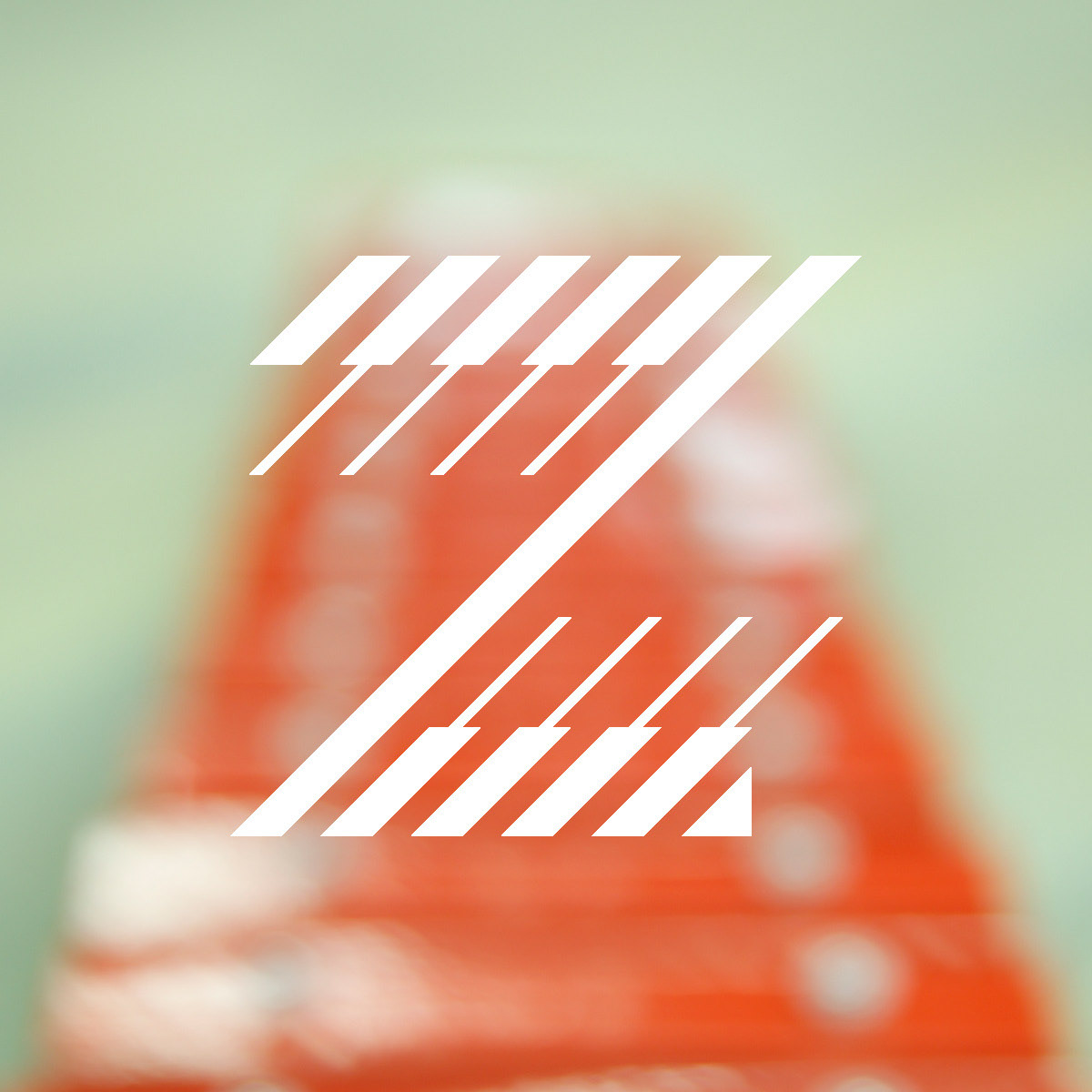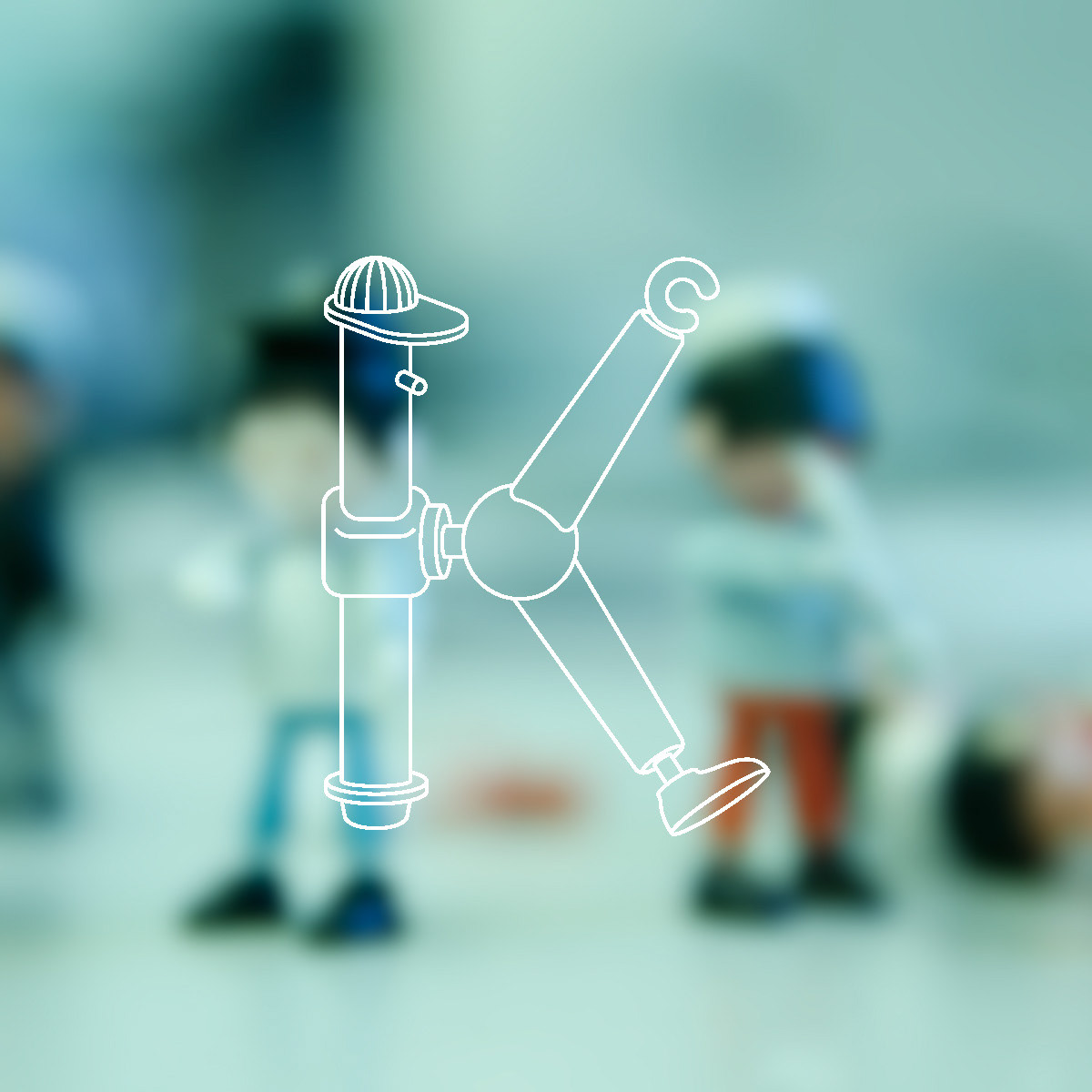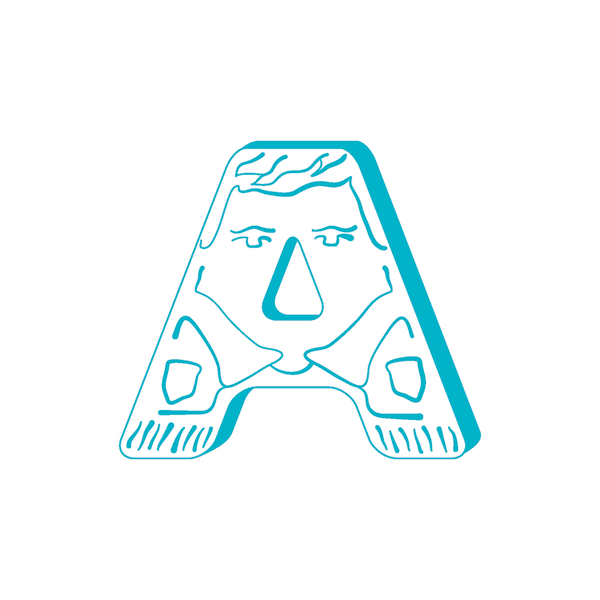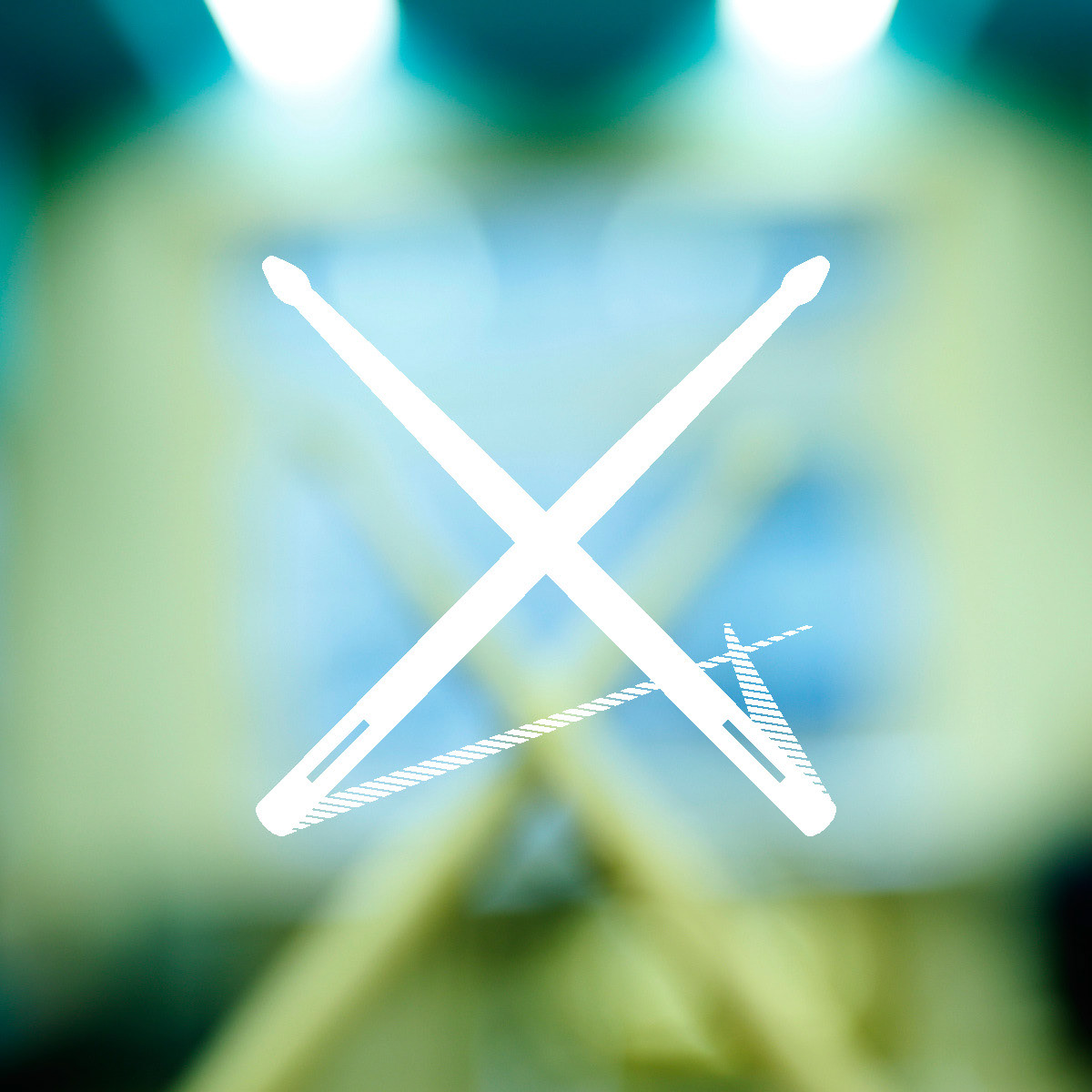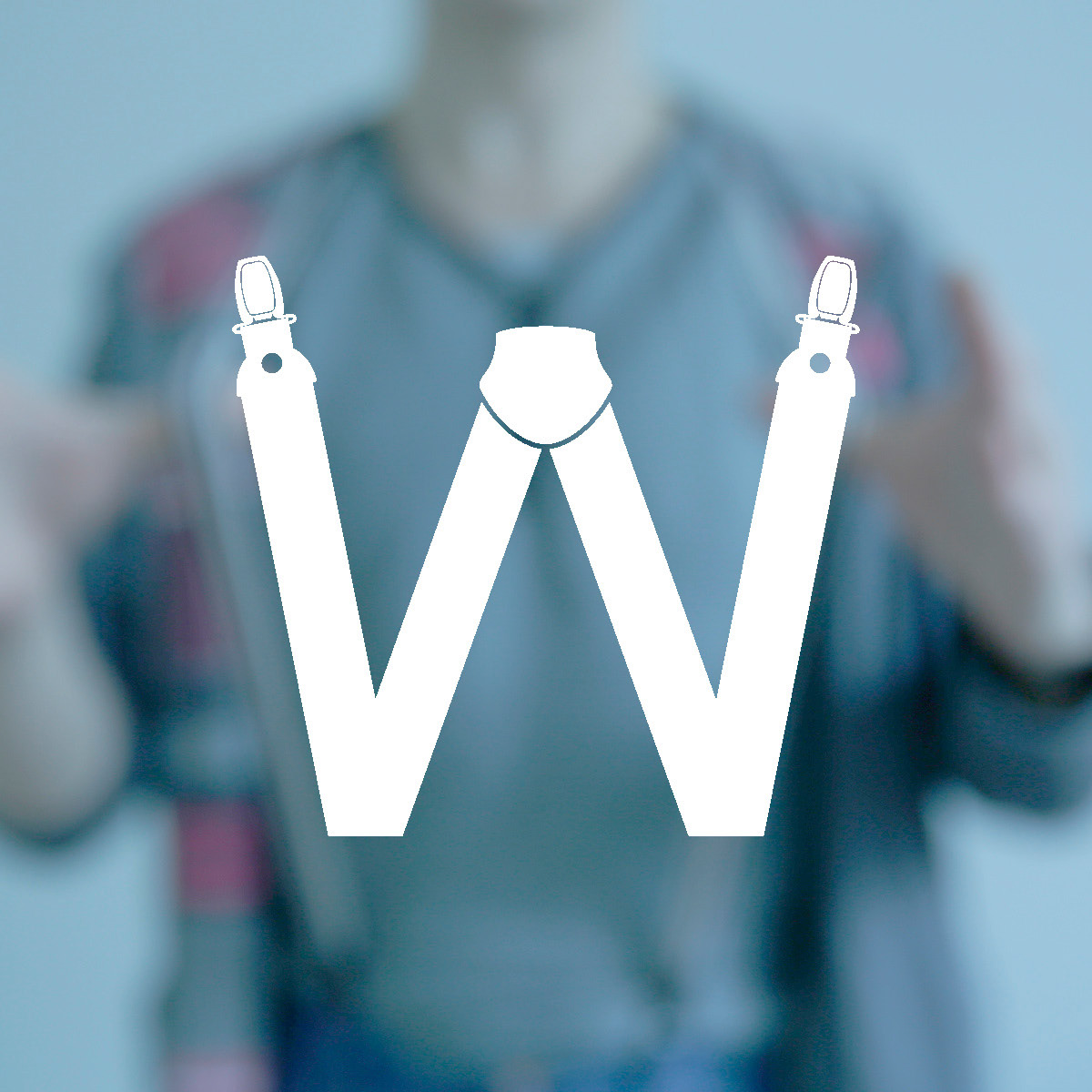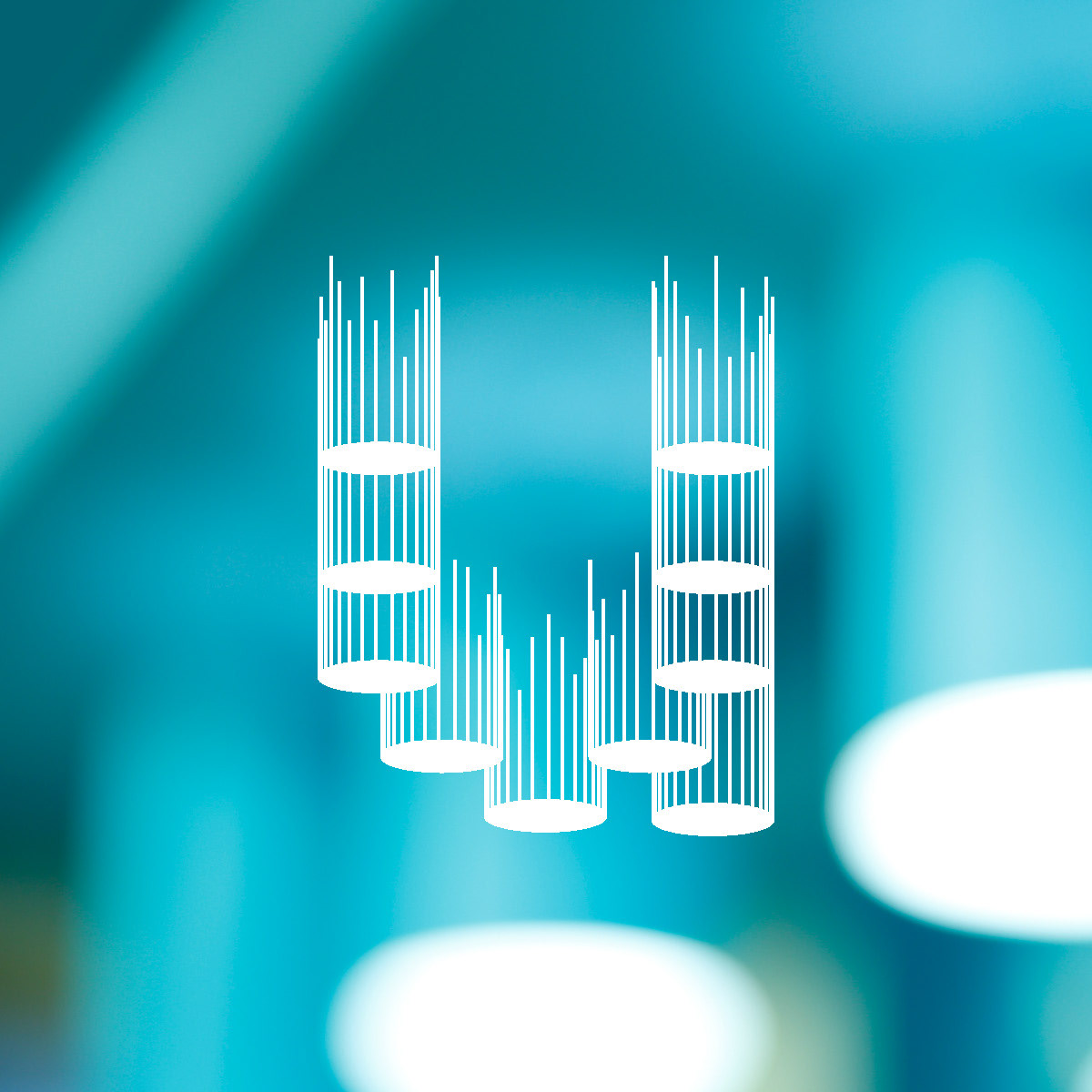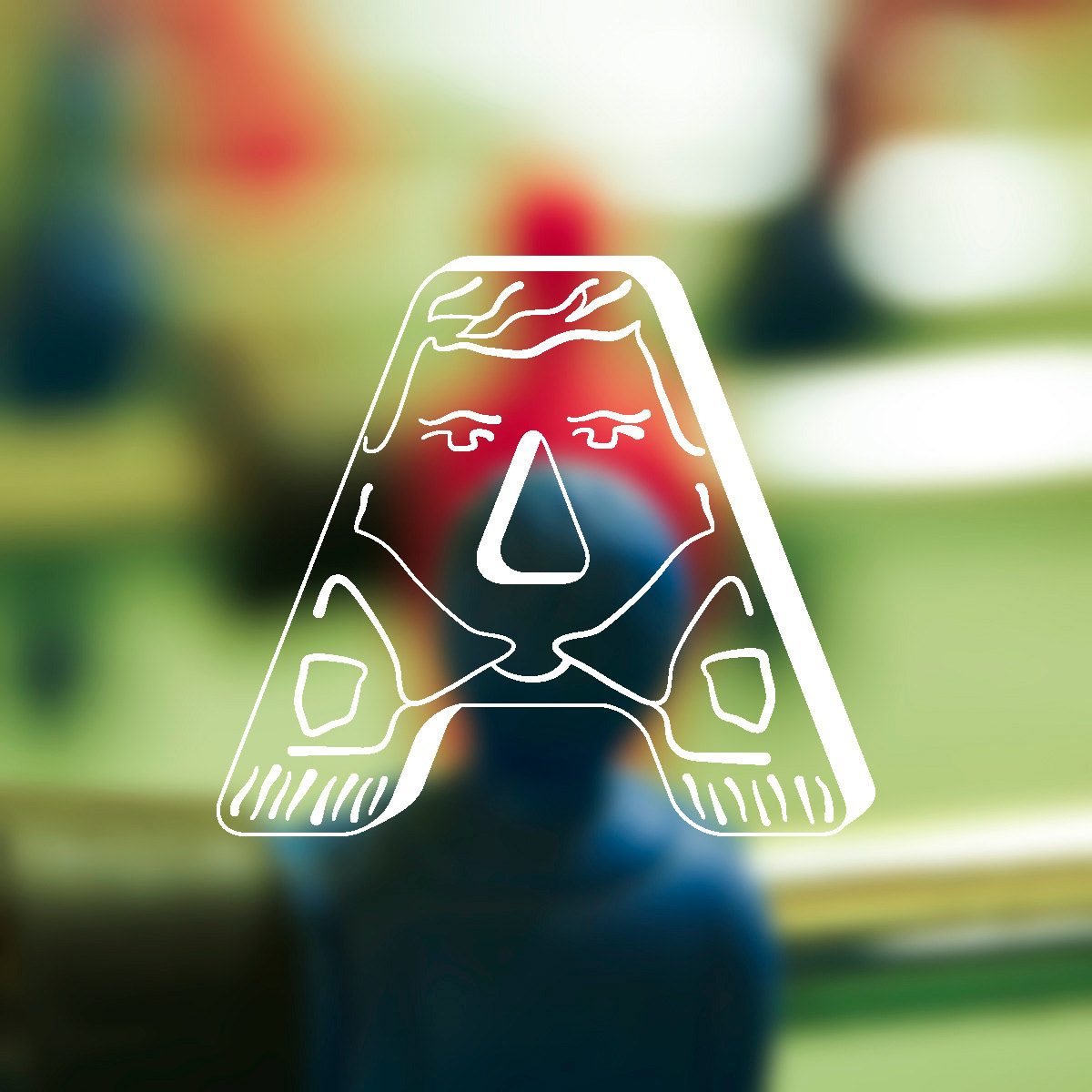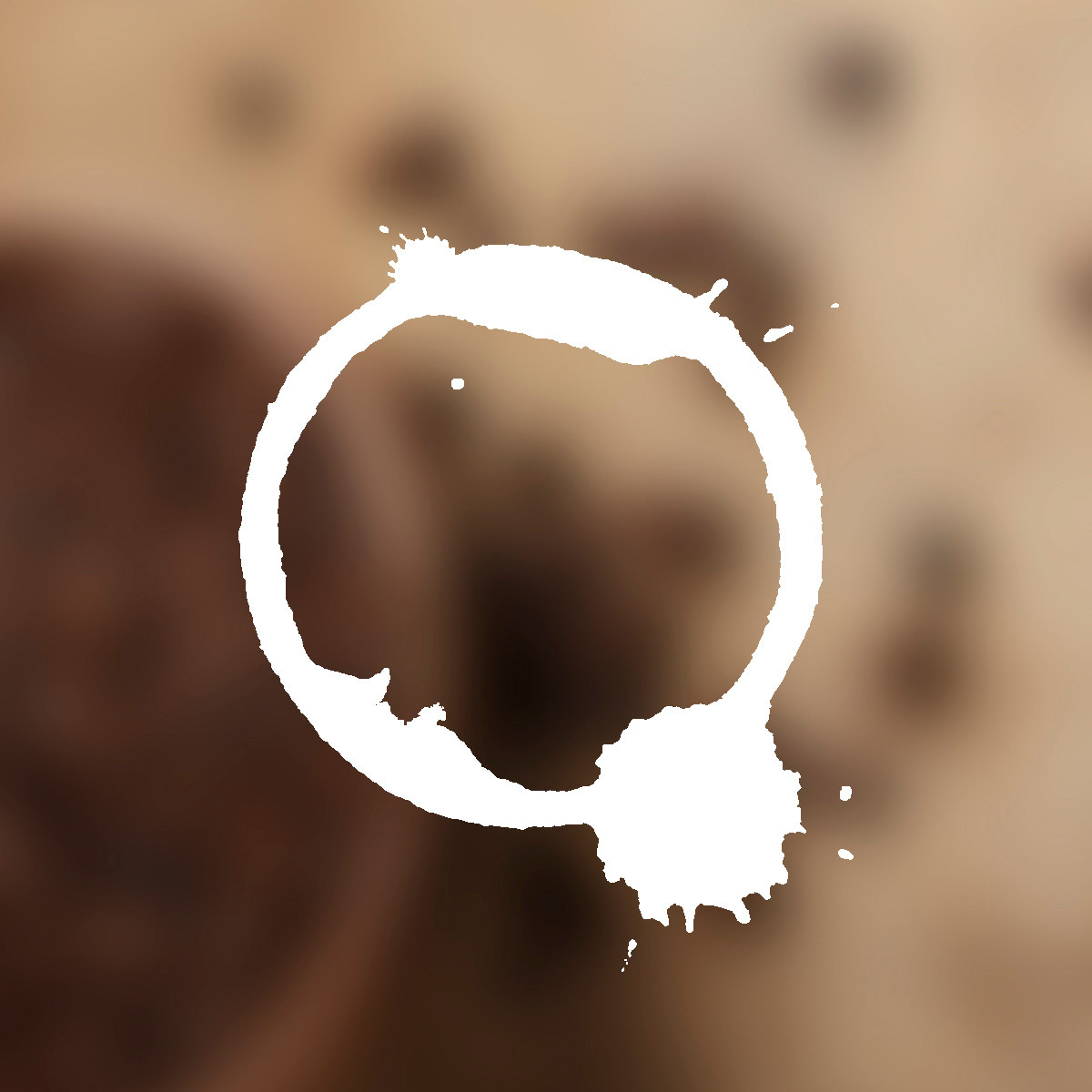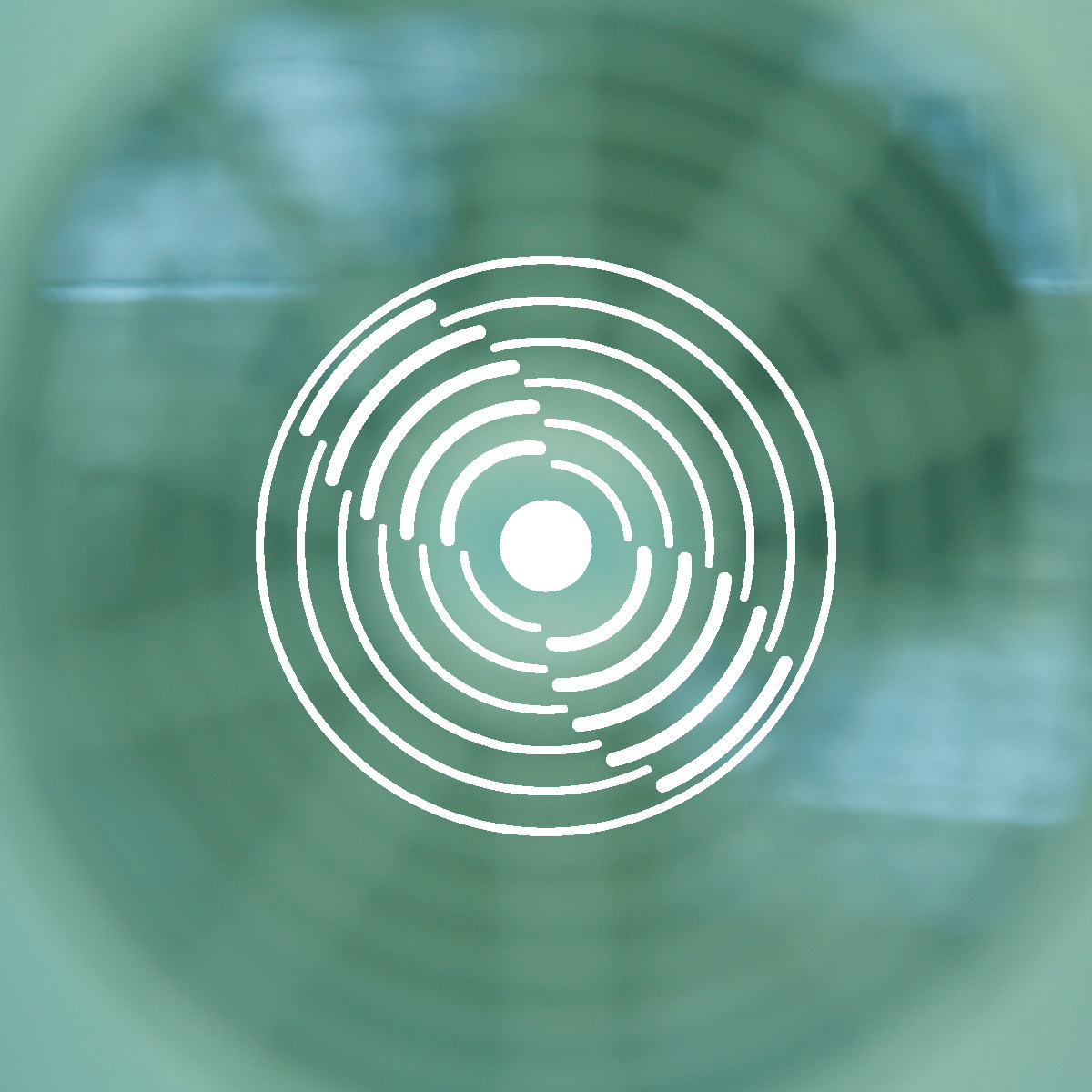
Our New Years present to clients was the first conceptual ALL CAPS font  Avys 2014.
(Avys in lithuanian means sheep.)
Each letter represents the object from our enviroment - the working space.
We made personal newsletters to our main clients, project website and bags with this font.
ALLCAPS 2014